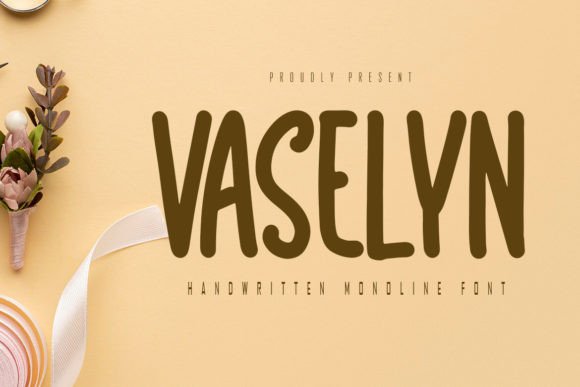
Introducing Vaselyn Font: The Urban-Chic Monoline Handwritten Font
Unleash the creative power of Vaselyn Font, a monoline masterpiece that exudes strength, confidence, and dynamism. Crafted by the skilled hands of Skiiller Studio, this display font is the perfect choice for igniting a spark of urban flair into your designs.
As a font family, Vaselyn Font is a versatile chameleon, adapting seamlessly to a multitude of projects. Whether you're crafting eye-catching headlines, distinctive logos, or captivating social media posts, Vaselyn Font rises to the occasion, leaving an indelible mark on your creative endeavors.
Step into the realm of urban chic with Vaselyn Font. Its confident strokes and dynamic curves command attention, adding a touch of boldness to your designs. Create striking branding that speaks volumes, headlines that demand notice, and social media posts that captivate your audience.
With Vaselyn Font, the possibilities are boundless. Let your imagination run wild as you explore endless design opportunities. Dive into the world of urban art, streetwear fashion, bold typography, and cutting-edge logos. The creative possibilities are as vast as your imagination.
Embrace Vaselyn Font, the urban-chic monoline handwritten font, and elevate your designs to new heights. Experience the power of strong typography and let your creativity shine through. Make a statement, leave an impression, and create designs that resonate with your audience.